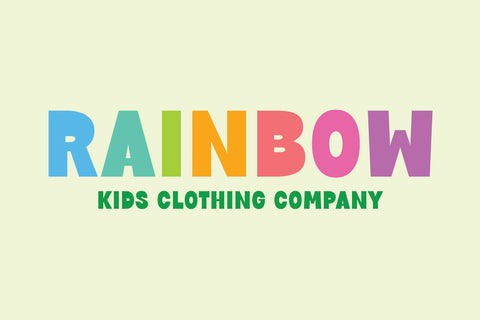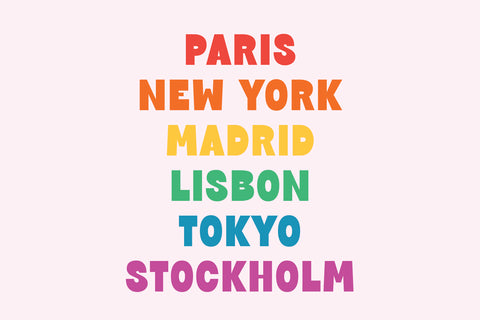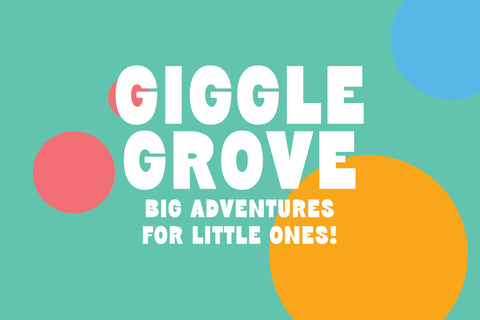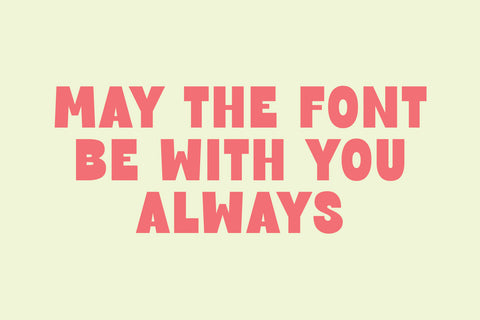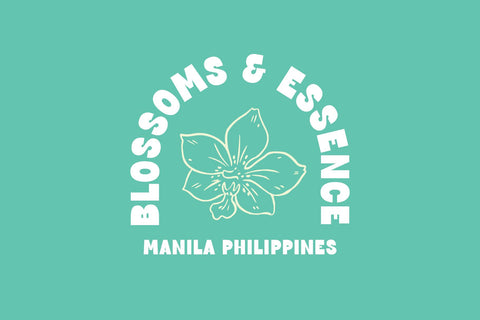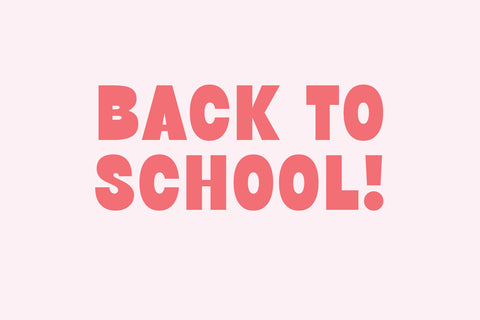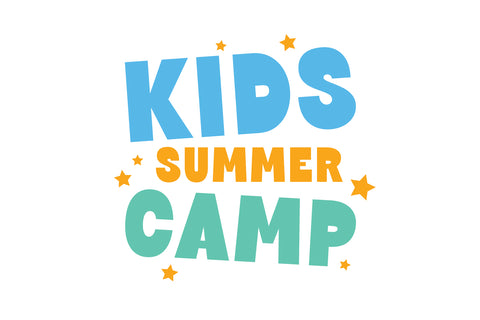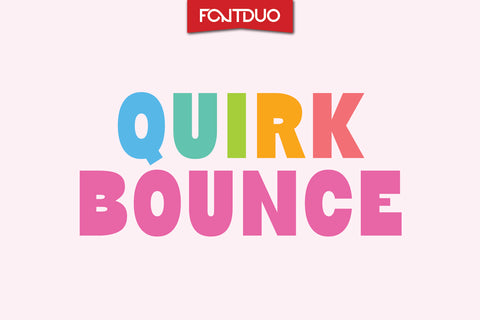
Quirk Bounce Back to School Font
Quirk Bounce FD is a uniquely designed reverse contrast sans serif typeface, created to bring a quirky and bold aesthetic to your creative projects. Every line and curve of this font has been meticulously crafted, making it perfect for a wide range of applications, from playful and unconventional designs to striking and modern compositions.
Distinctive Design: Quirk Bounce FD embraces the charm of reverse contrast, offering a bold and quirky character that sets it apart from traditional fonts. It’s perfect for adding a fun, creative touch to your work.
Versatile Usage: This typeface is ideal for everything from branding, logo design, and product packaging to posters, social media graphics, and editorial layouts. Its unique style works beautifully in both digital and print mediums.